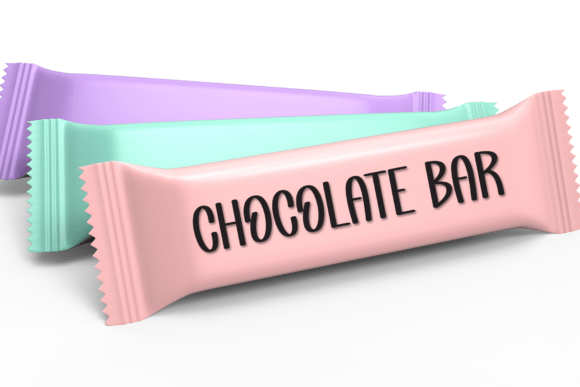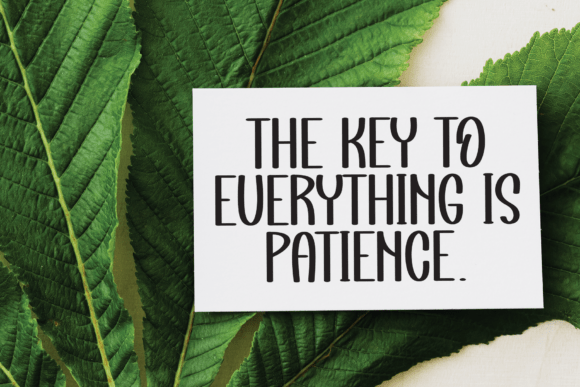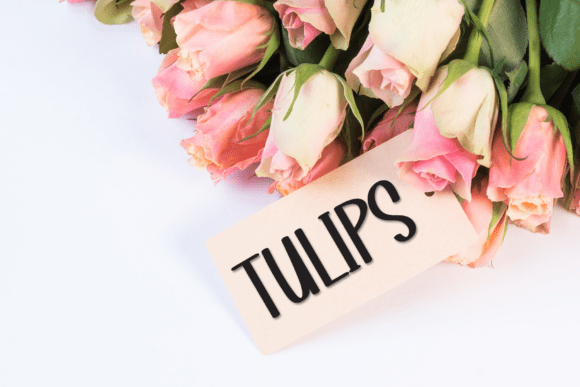
Introduction to Shining Memories Font
As a designer, there’s nothing quite like the thrill of discovering a new font that perfectly captures the essence of your creative vision. For me, that moment came when I stumbled upon the Shining Memories Font, a stunning display font that effortlessly combines simplicity with a warm, approachable vibe.
With its clean lines, balanced letterforms, and subtle rounded edges, the Shining Memories Font is a true masterpiece of modern handwritten typography. Whether you’re working on a branding project, creating digital content, or designing packaging, this high-quality font is an absolute must-have. Not only is it free to download, but its transparent background and versatile style make it the perfect design resource for any creative project.
What sets the Shining Memories Font apart from other fonts is its unique ability to deliver both clarity and charm in equal measure. Its crisp structure and polished finish make it an ideal choice for designers looking to add a touch of warmth and personality to their work.
Key Features of Shining Memories Font
- High-quality design for creative projects, ideal for use in digital art and graphic design
- Includes a range of characters, including letters, numbers, and symbols, to support a variety of design needs
- Designed with a unique, elegant aesthetic, perfect for use in logos, titles, and other creative applications
Honest Review: Shining Memories Font
I recently had the chance to work with the Shining Memories Font, and I must say it’s been a delightful addition to my design resources. The font’s high quality and elegant design make it perfect for any creative project.
What works well: ✨ The font is incredibly versatile and can be used for a wide range of applications, from wedding invitations to social media graphics. I also appreciate the transparent background, which makes it easy to use in both light and dark designs. The font’s unique style also makes it stand out from other fonts in my collection.
Overall, I’m really impressed with the Shining Memories Font. It’s a great addition to any design collection, and I would definitely recommend it to anyone looking for a high-quality font for their creative project.
Here are some key features of the Shining Memories Font:
- High quality and elegant design
- Transparent background for easy use in light and dark designs
- Unique style that stands out from other fonts
- Limited character set may be a problem for some users
Tips and Best Practices
To get the most out of the Shining Memories Font, use it in conjunction with high-quality images and design elements. Experiment with different font sizes and styles to create a visually appealing design. Additionally, use the font’s transparent background to create stunning text overlays that add depth and interest to your design.
The Shining Memories Font is perfect for a variety of creative projects, including: